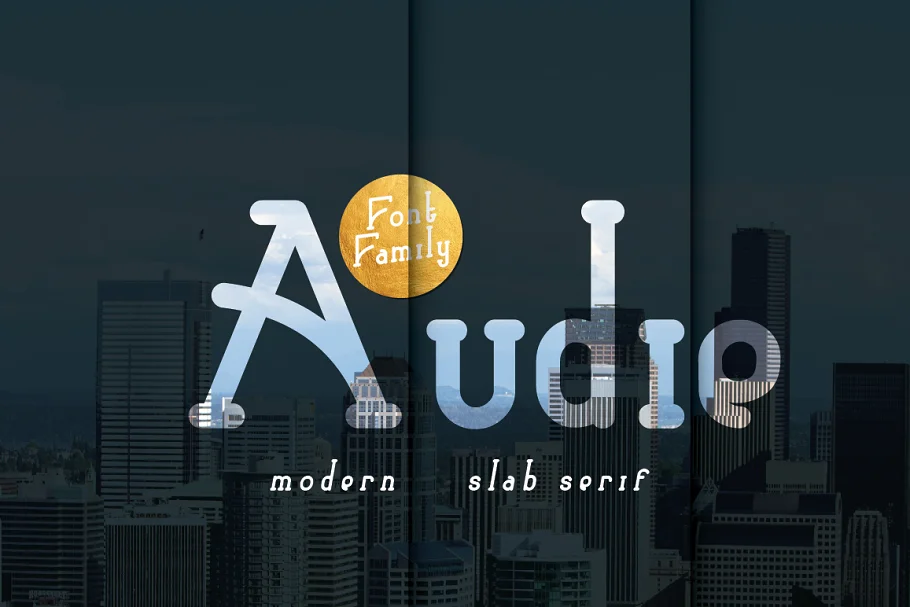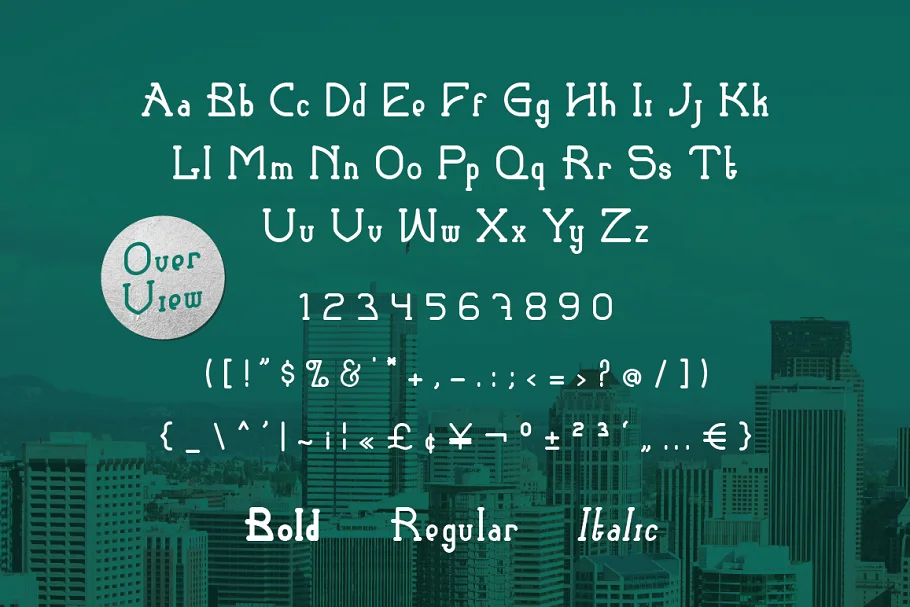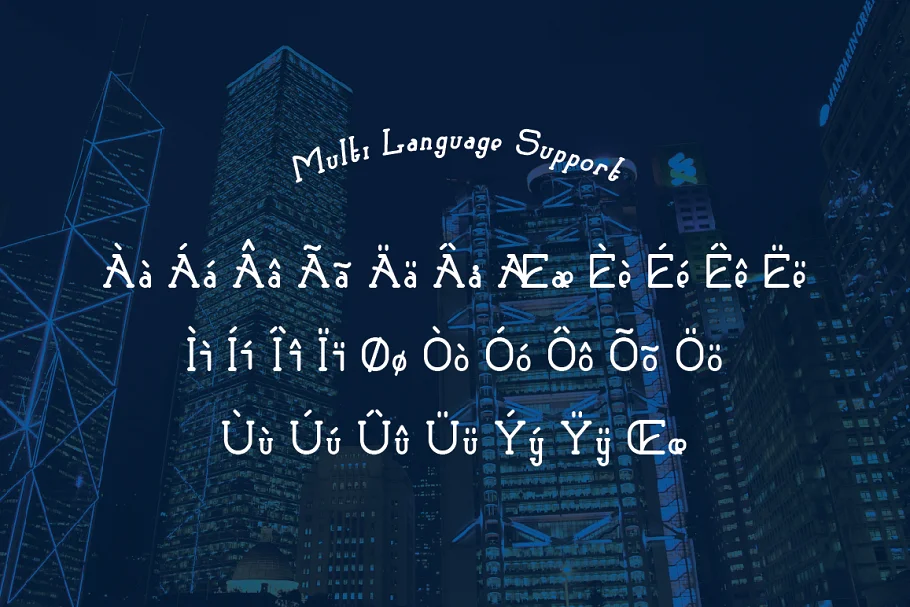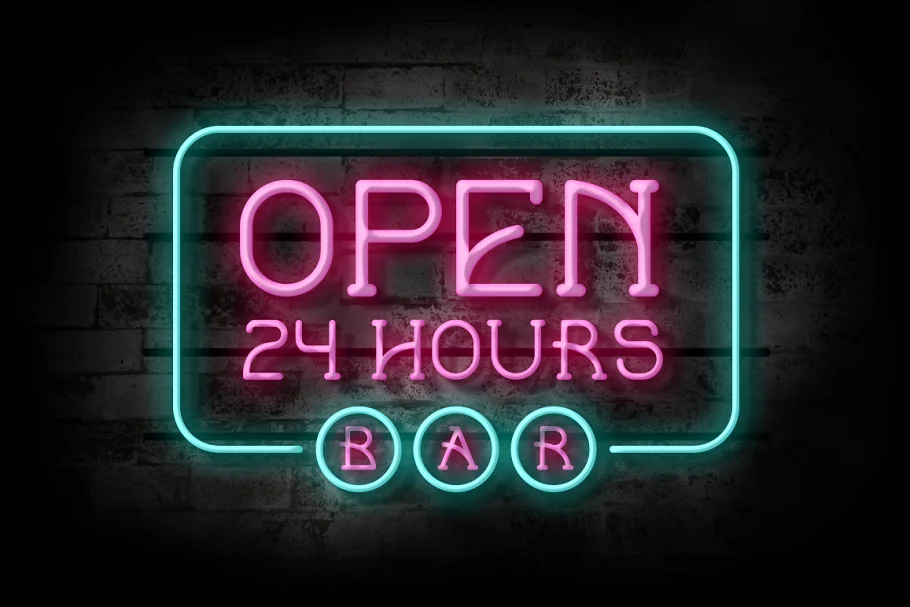
About the Audie Font
Audie was inspired by the urban cityscape with a combination of slab serif structures. The typeface comes with three family font which is bold, italic and regular.
This typeface is best used for headline, logo, branding, body text, quotes, printed quotes. Features include Uppercase, Lowercase, Numerals, Symbols, Punctuations, and Multi-Language Support.